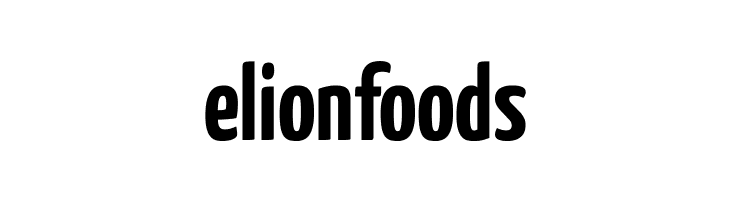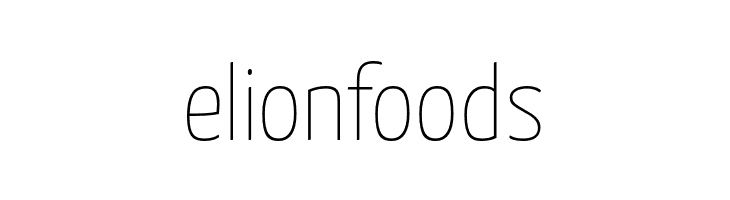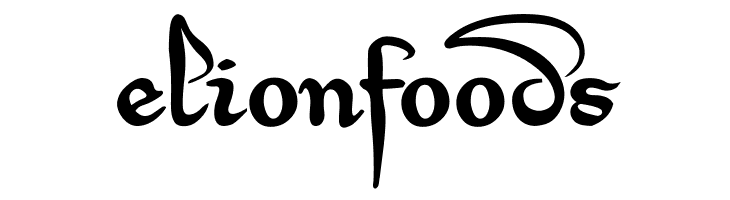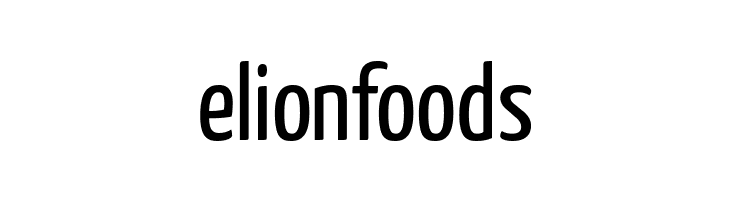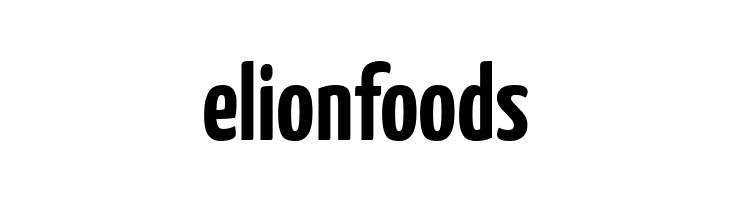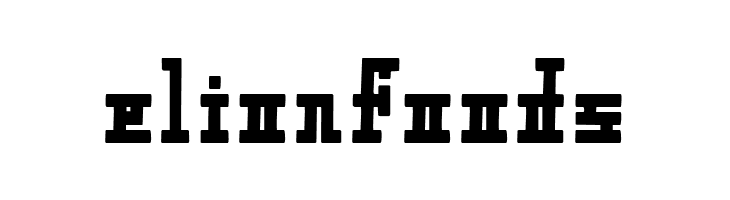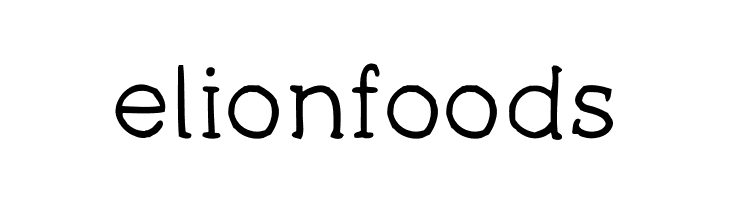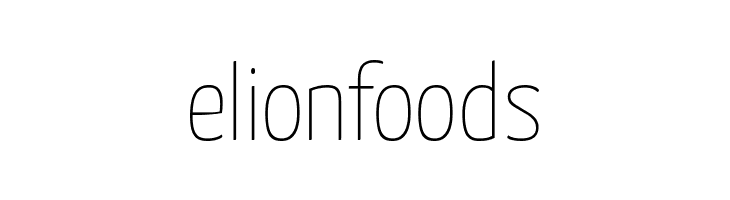
• XIPAROS
An artistic and whimsical font with elongated, flowing letterforms.
• XiparosLombard
An ornate and decorative font with intricate flourishes and whimsical character shapes.
• Xirwena
An ornate and decorative script font with intricate details.
• Xolto-Regular
A bold, geometric font with a retro digital style.
• YAA Type - FREE
A playful and whimsical font with rounded, slightly irregular letterforms.
• Yanone Kaffeesatz
A modern, clean sans-serif font with a slightly condensed style.
• Yanone Kaffeesatz Bold
A bold, modern sans-serif font with a clean and impactful design.
• Yanone Kaffeesatz Bold
A bold, modern sans-serif font with a compact and efficient design.
• Yanone Kaffeesatz Extra Light
A sleek, extra-light sans-serif font with a modern and condensed design.
• Yanone Kaffeesatz Extra Light
A modern, extra-light sans-serif font with a narrow, elongated style.